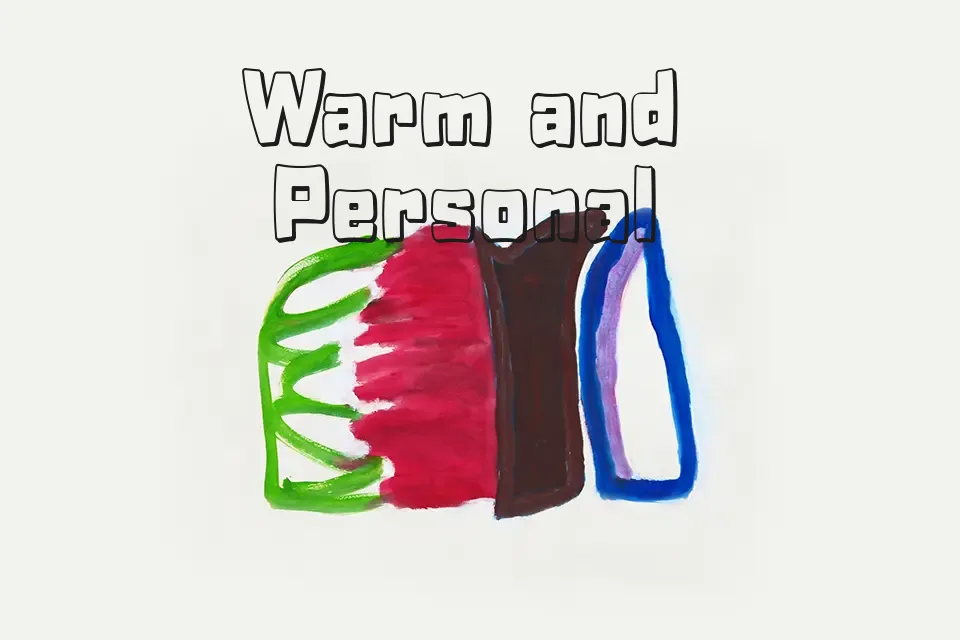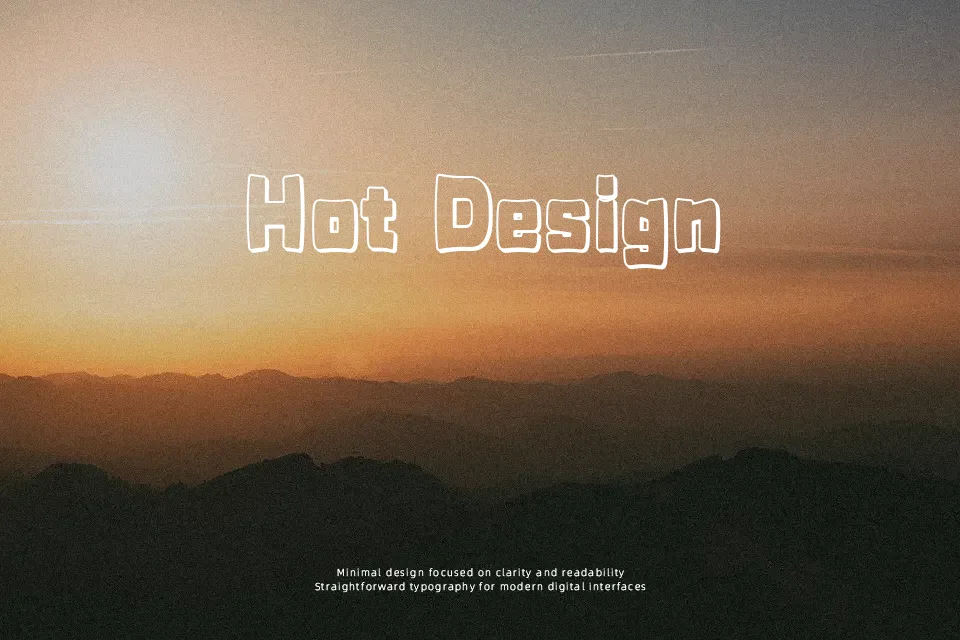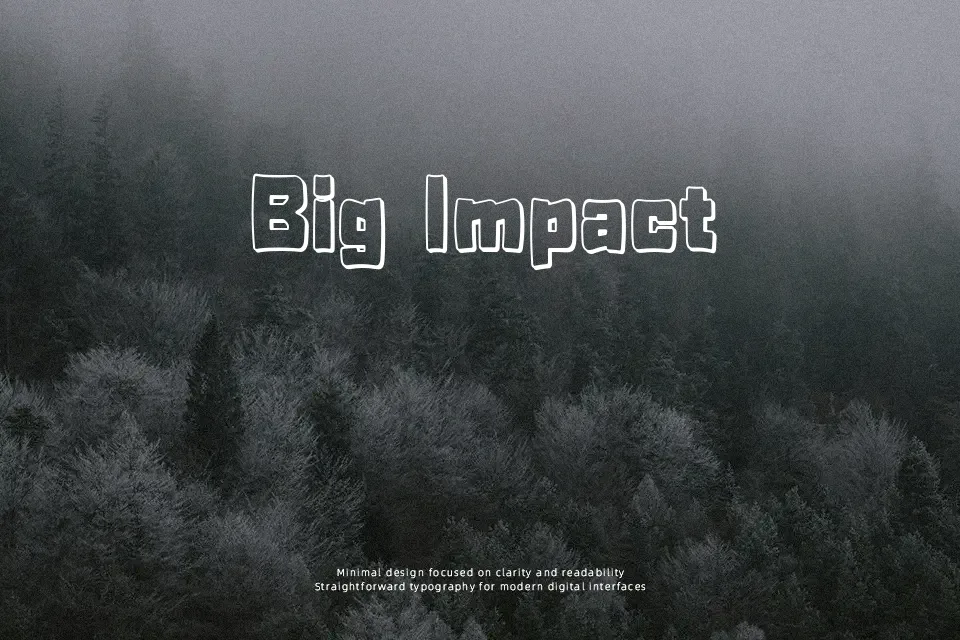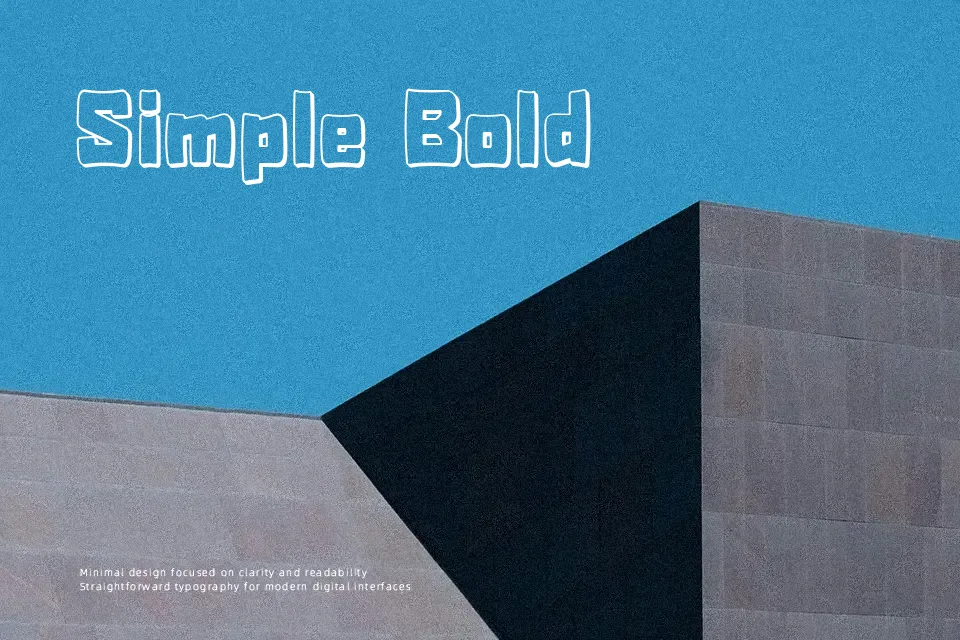
Rabanera Font
Designed by deFharo
Designed with an engaging outline and drop shadow effect, Rabanera Font brings a dynamic, three-dimensional presence to large typographic layouts. The bold structural strokes and balanced open spacing help maintain excellent clarity in commanding headlines and vibrant signage. By combining playful geometry with structured letter proportions, the typeface naturally draws the eye, making it a highly effective choice for music festival posters, youthful fashion graphics, and creative product packaging. The heavy decorative detailing provides an excellent visual rhythm at larger display sizes. However, these complex outlines become less effective when scaled down, making the letterforms highly unsuitable for long paragraph text or dense editorial layouts where continuous reading comfort is necessary.
creative product packaging
bold website hero headlines
youthful fashion graphics
Perfect for fashion, headline, and packaging, with a bold and decorative style.